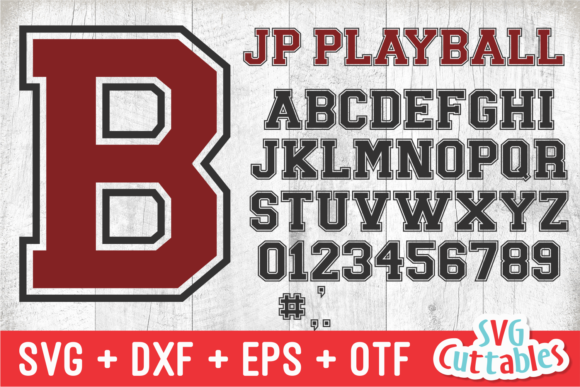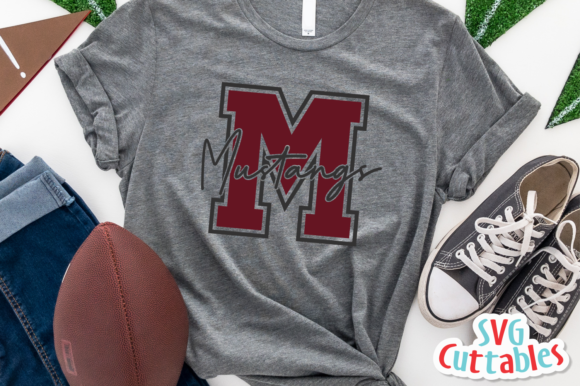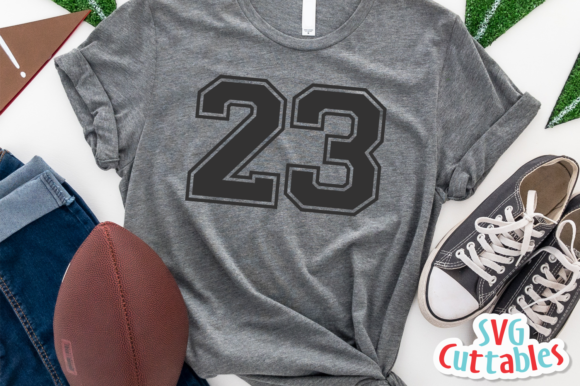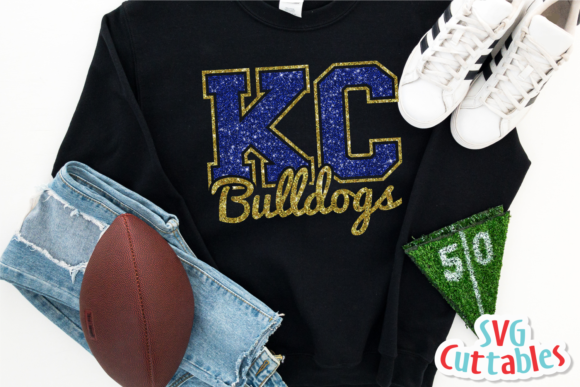
JP Play Ball Font
Explore the possibilities with JP Play Ball Font, a font that offers both beauty and functionality. JP Play Ball is a cool, retro styled and athletic display font. It works great for collegiate or sporty designs. The only limit is your imagination.
Its strong, slightly condensed forms make JP Play Ball ideal for headlines, logos, and short impactful text within posters or sportswear branding. The retro styling lends itself well to vintage-inspired designs and projects needing a playful yet confident feel. Avoid using it for body text or long paragraphs; its condensed nature and display-oriented design would hinder readability.
Consider pairing JP Play Ball with a clean sans-serif like Open Sans for body copy to create a balanced contrast, or a more geometric sans-serif for a modern feel. A classic serif like Garamond could add a touch of sophistication if a more refined aesthetic is desired.
JP Play Ball projects a bold, energetic, and friendly personality. It’s perfectly suited for brands targeting a younger demographic or those wanting to convey a sense of fun and dynamism.